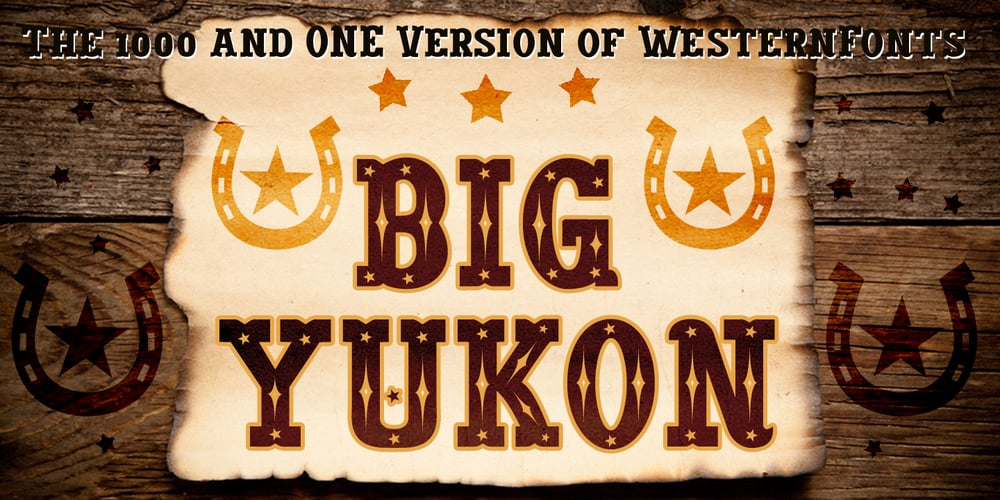
Big Yukon Font Family was designed by Otto Maurer and published by Otto Maurer. Big Yukon contains 28 styles and family package options. Big Yukon is a typical Western font, yes the 1001 Version. But it’s better than ever and not like every other wester&Country Font. Every single font comes with the Dingbatz for free! Please take a look at my other Fonts.